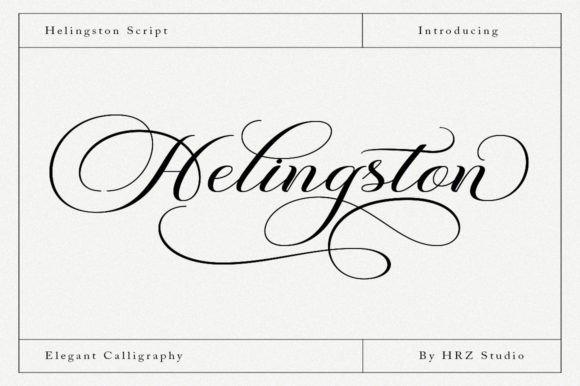
A symphony of calligraphic artistry awaits you with Helingston Font, a script font family that gracefully combines elegance and expressiveness. Inspired by the charm of handwritten notes, Helingston is an ode to romance and beauty, perfectly tailored for wedding banners. Its flowing strokes and delicate curves add a touch of timeless charm to any design.
Immerse yourself in the elegance of Helingston and allow your creativity to flourish. This font family invites you to explore the realm of visual storytelling, capturing the essence of love, joy, and celebration. Whether you're a passionate designer, a creative entrepreneur, or a lover of handcrafted aesthetics, Helingston will elevate your designs to new heights.
Each letter in the Helingston font family is a testament to artistry, designed with meticulous attention to detail. Its graceful lines evoke the beauty of calligraphy, adding a touch of sophistication to your designs. Whether you're creating wedding invitations, save-the-date cards, or social media graphics, Helingston will bring a touch of elegance and timeless charm to your creations.
Indulge in the versatility of Helingston, as it seamlessly adapts to a wide range of design projects. From wedding stationery to branding materials, social media posts to marketing campaigns, Helingston effortlessly adds a touch of sophistication and style. Its adaptability makes it a must-have tool for creative professionals seeking a font that can effortlessly elevate their designs.
Fall in love with the timeless beauty of Helingston Font, a script font family that embodies romance, creativity, and boundless possibilities. Embark on a journey of visual expression and let Helingston guide you to create designs that captivate hearts and leave a lasting impression.